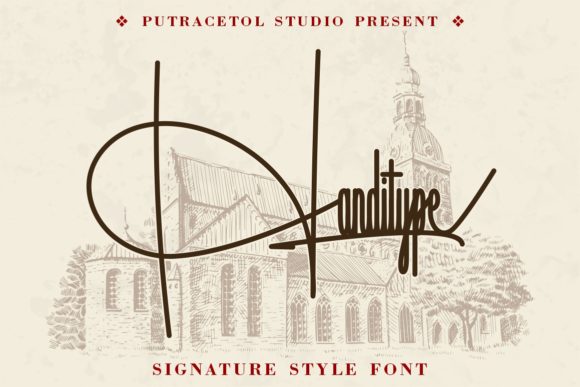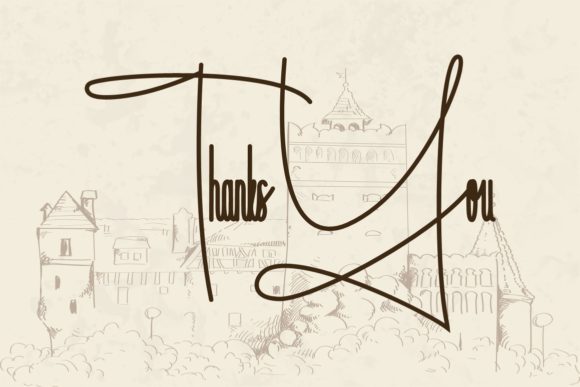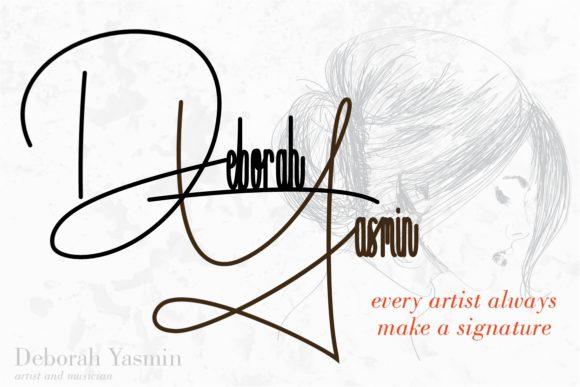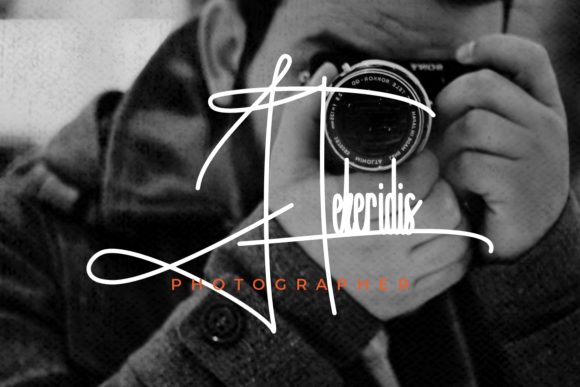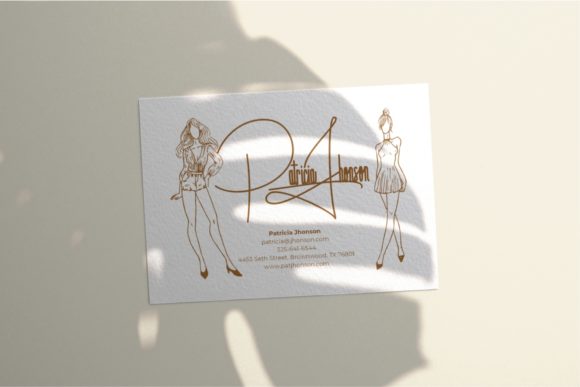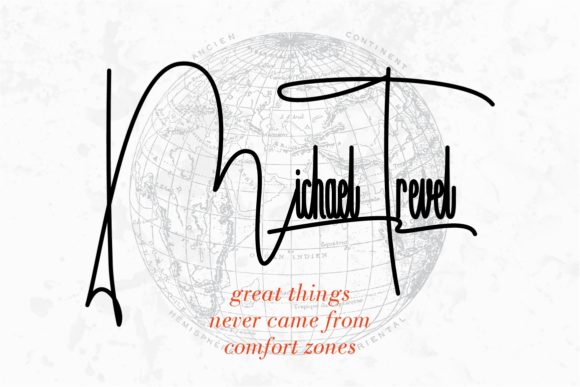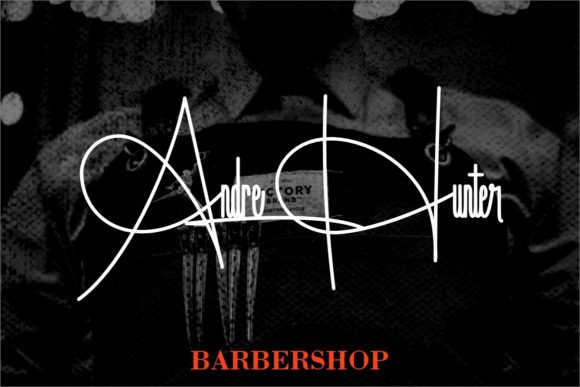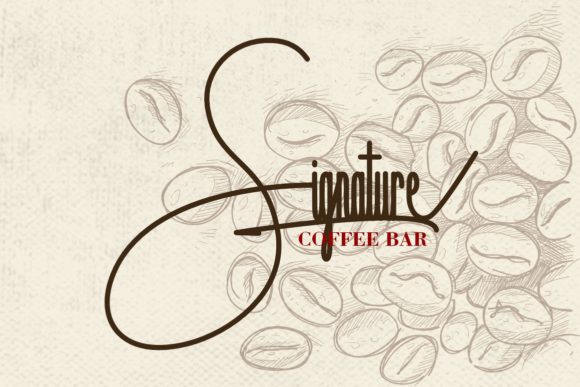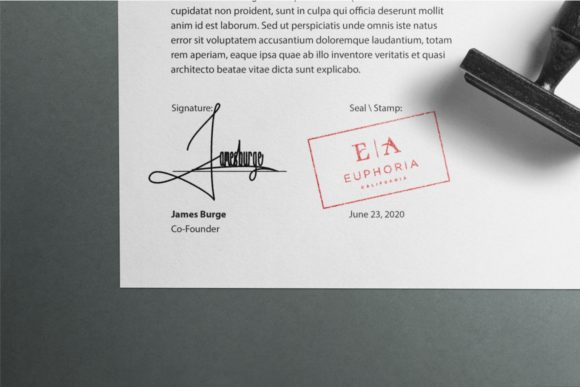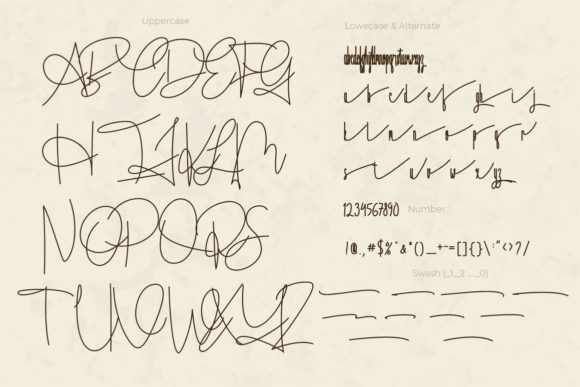
Handitype Font
About Handitype Font
Handitype is a magical signature font carefully created with a touch of elegance. This is a beautiful combination of timeless elegance and authentic calligraphy. It features an incredibly classic style, while still keeping a friendly feel. Handitype is the perfect font for making original and outstanding designs.